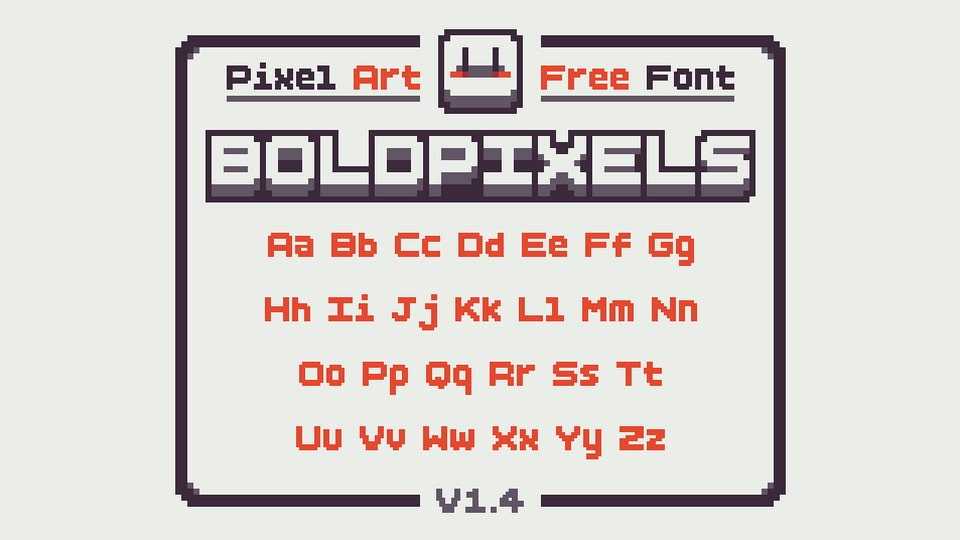
Download BoldPixels font, a bold and vibrant pixel art typeface that captures the nostalgic charm of classic video games and retro digital aesthetics.
Designer: YukiPixels